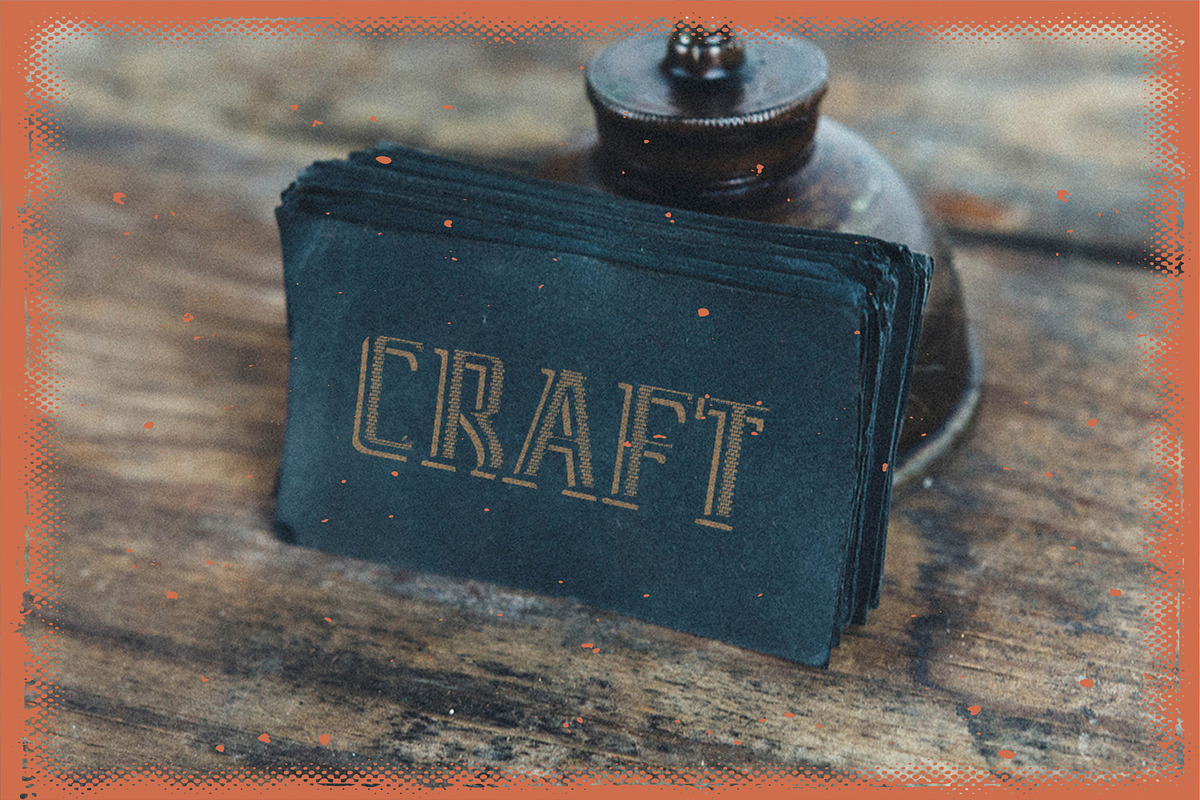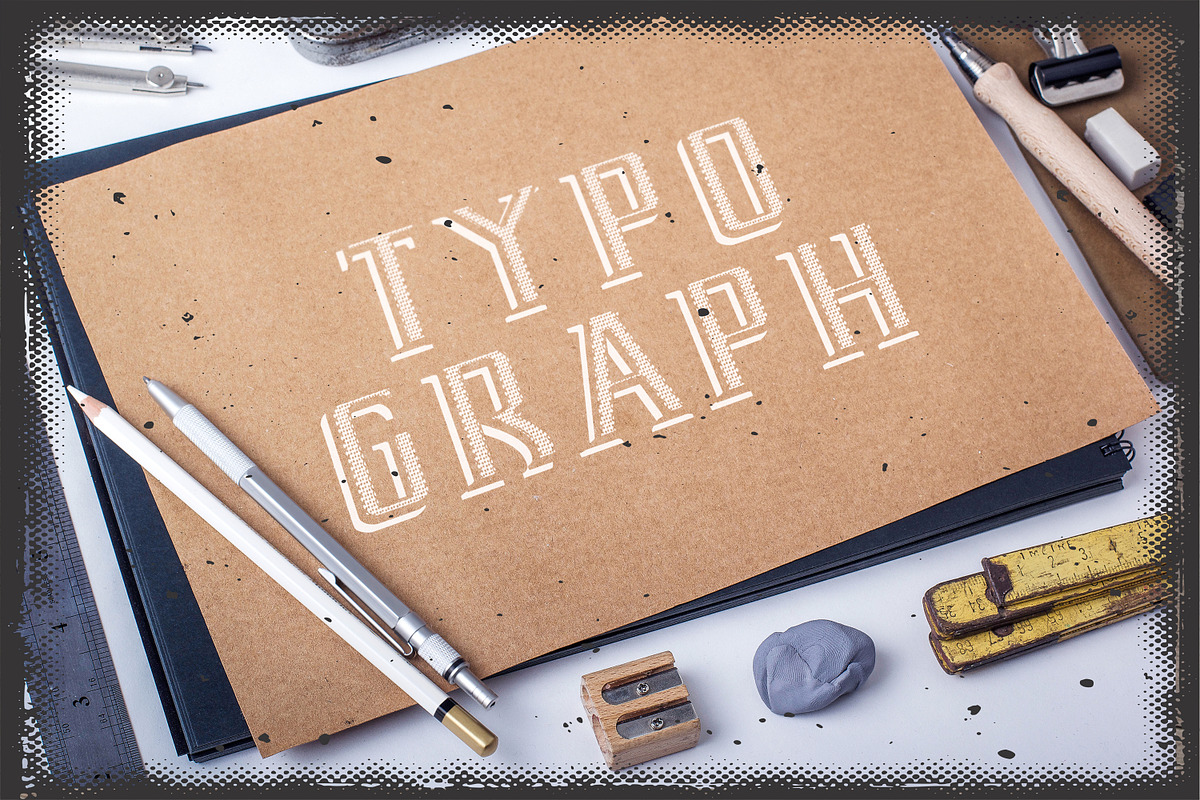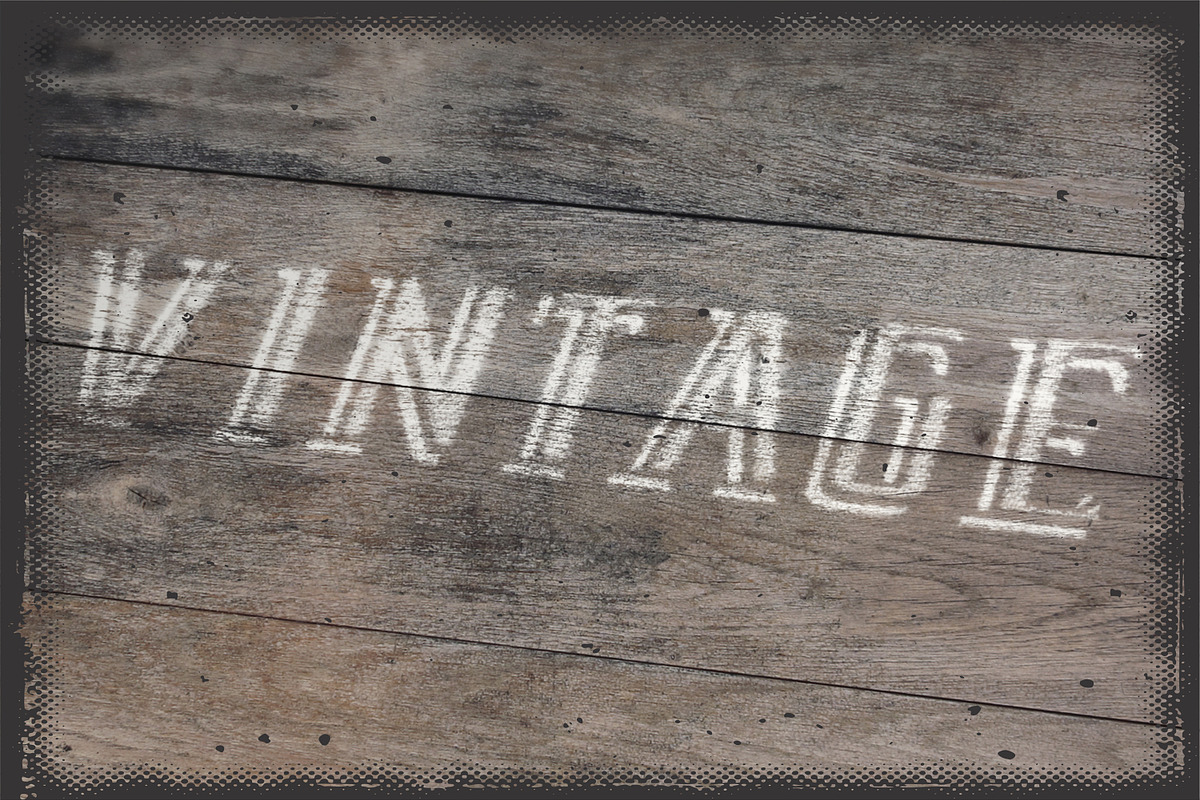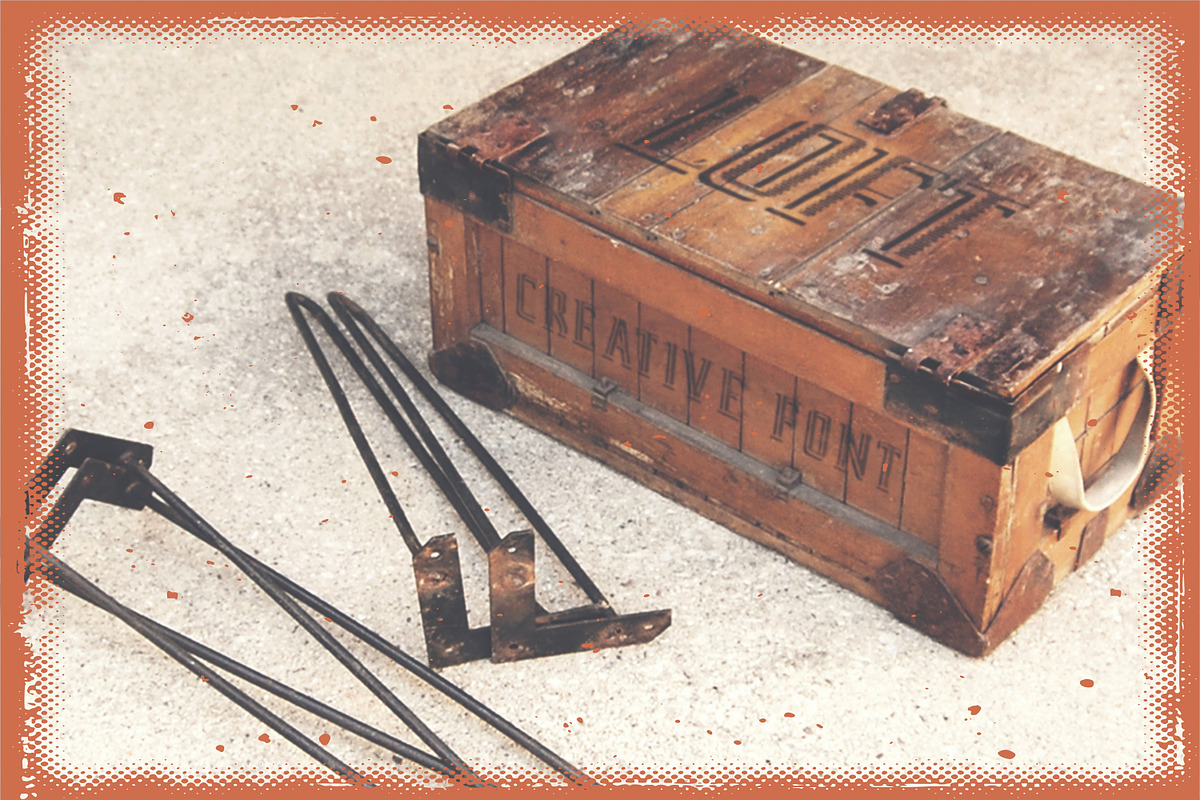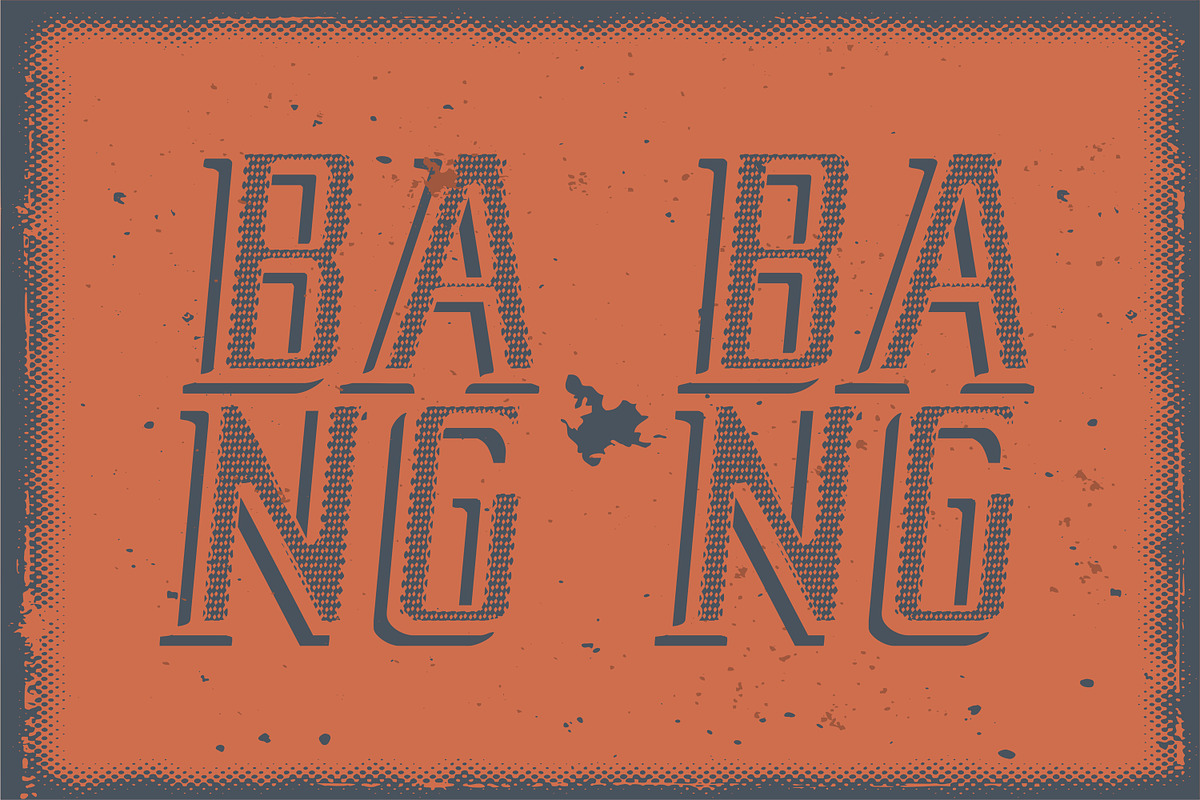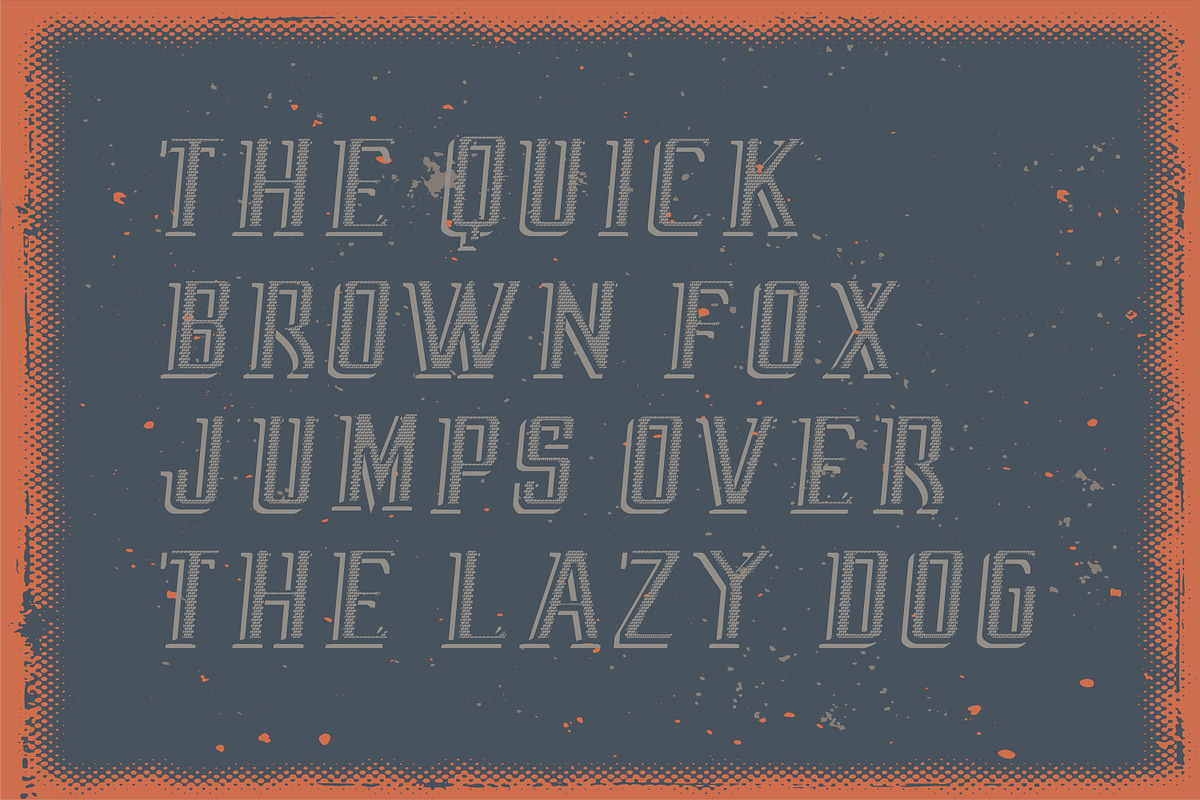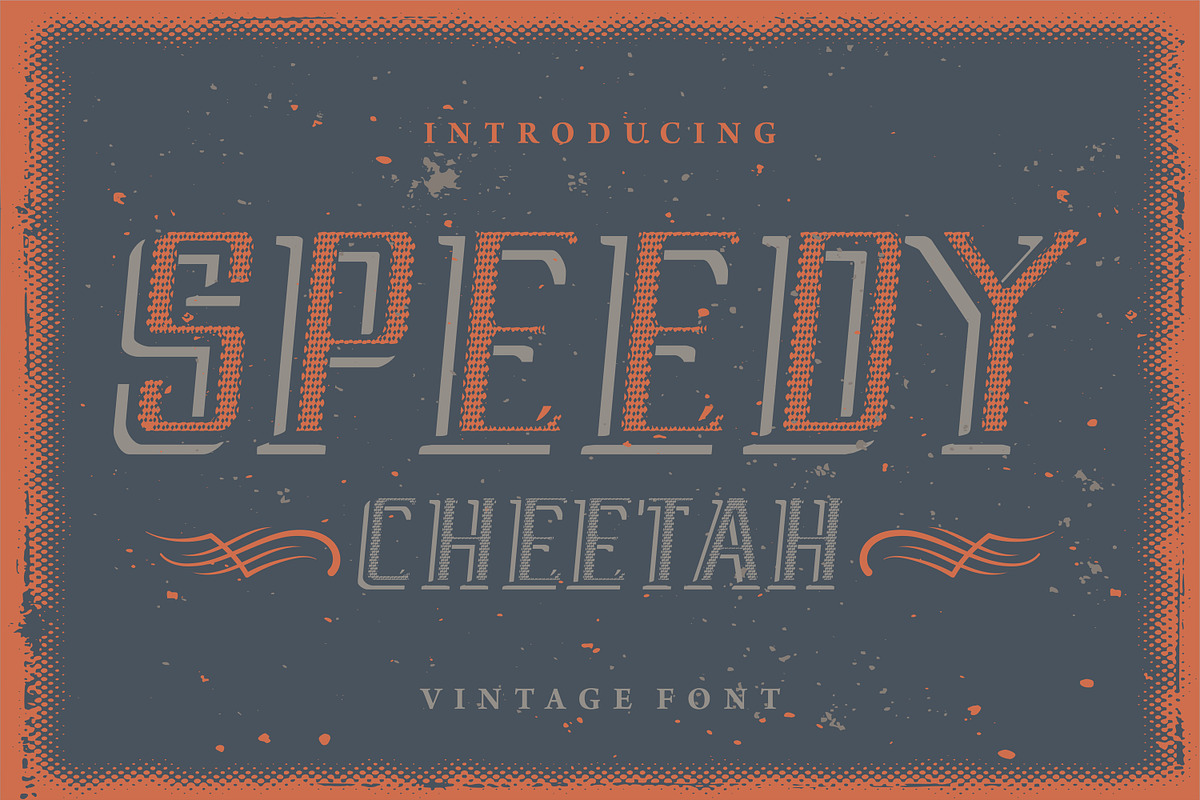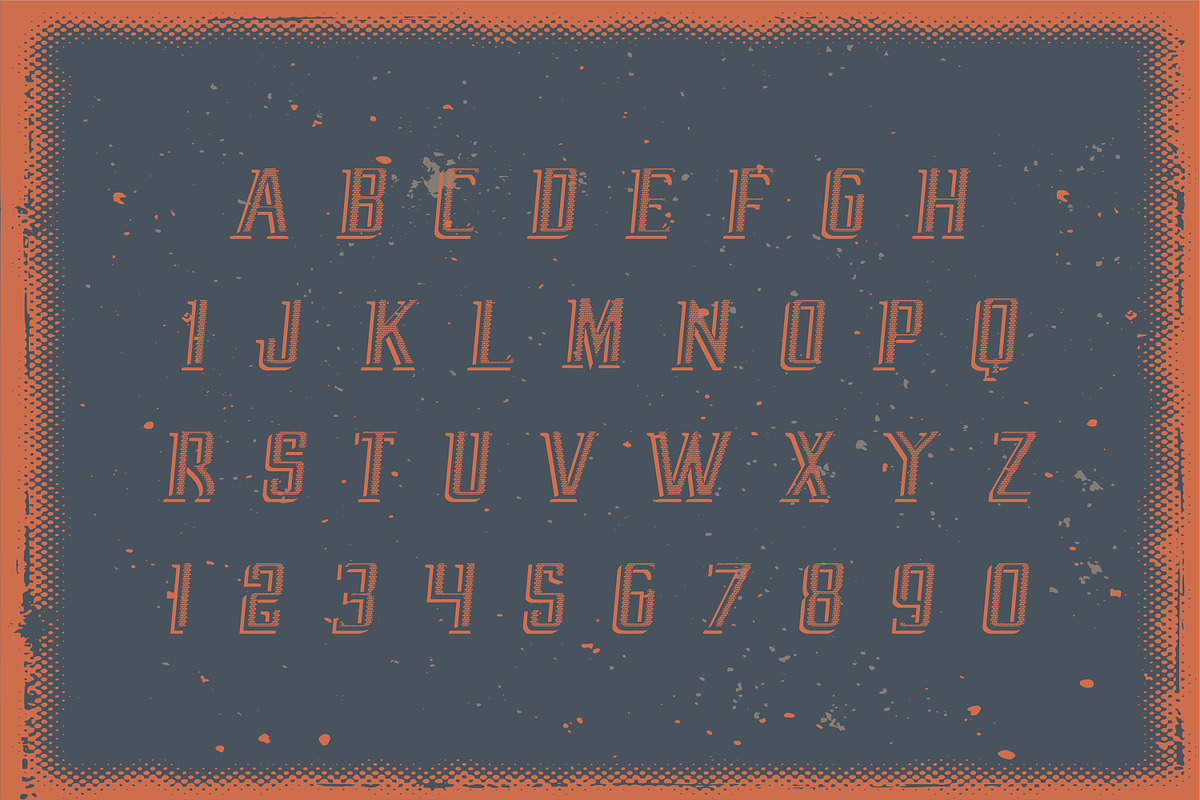
Speedy Cheetah - Retro Display Font
SpeedyCheetah is the version 2 of the Speedy typeface with a rework in design. As the backbone of the font is still represents similar theme addition and rework was made in the letter’s bodies. Now the design is closer to cheetah style if you take closer look. The vintage style is visible from its structure and letters design. You can use this font for many various design ideas. Please refer to the list of possible uses we have created to help designers with inspiration and add your idea in comments section below.
Short list of possible uses for inspiration:
Book covers or inside chapters section heading
Posters or postcards design • Party decorations and congratulation cards
Invitation letters and business envelopes
Text headings and graphic themes designs